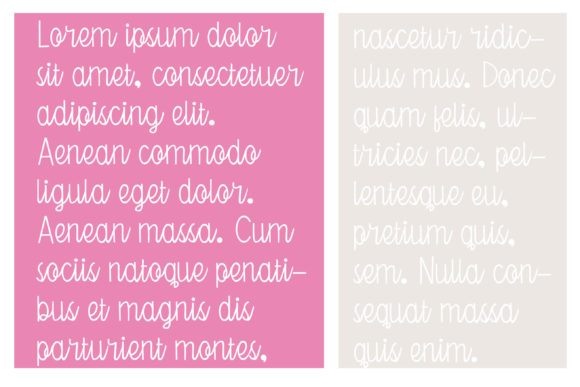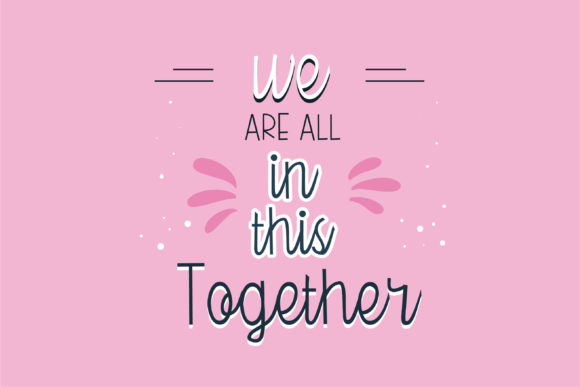
Pink Elephant Font
db-ku.com - Script & Handwritten -- Pink Elephant is a lovely and timeless handwritten font. It is the best choice for creating eye catching logos, branding and quotes. Every letter has a unique and beautiful touch, which will make your design come alive!